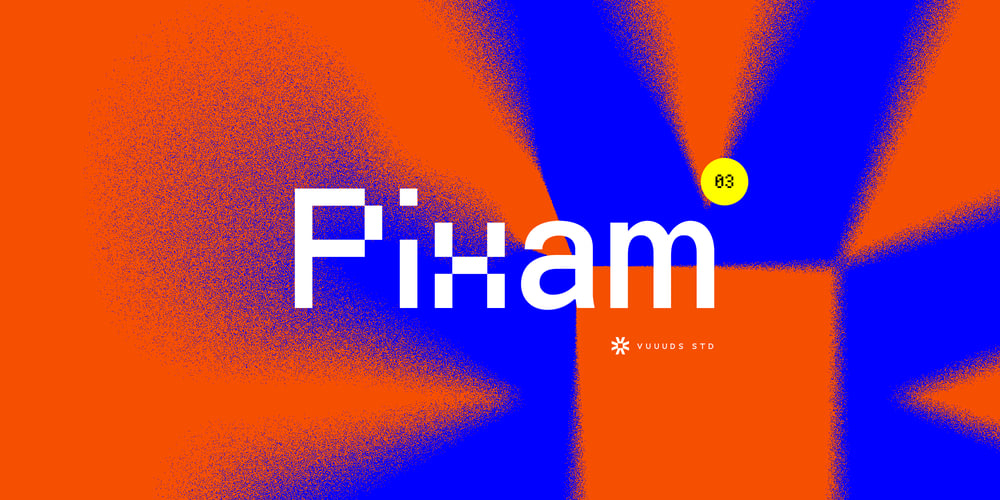
Pixam
Pixam font
Pixam Font Family was designed by Agung Syaifudin and published by vuuuds. Pixam contains 3 styles and family package options. Introducing Pixam Font!Pixam is experimental style font, combining regular sans serif with pixel art font. Every single glyph have been uniquely crafted.This font including beautiful alternate glyph. You can access the alternate glyph via Font Book (Mac user) or Windows Character Map (Windows user), I’ve been put the link tutorial inside the zip file.Thanks for looking.—instagram.com/vuuuds.studio